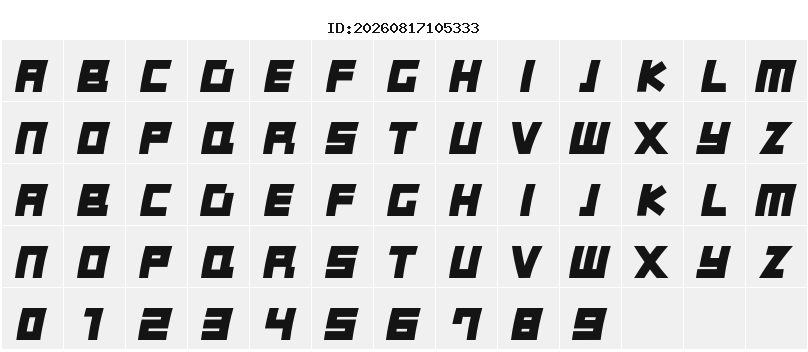
SomeBricks Preview
• Font Name: SomeBricks
About SomeBricks.ttf
SomeBricks.ttf is a modern, elegant sans-serif font designed for ultimate readability and visual harmony. Perfect for branding, headlines, web design, and print materials.